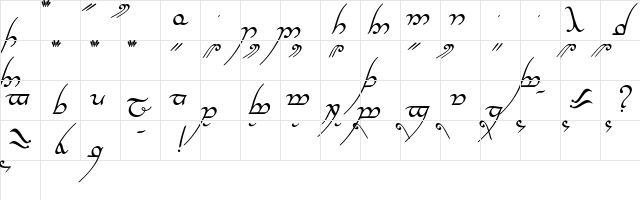
Tengwar Annatar Alt Italic Free Font
Tengwar Annatar Alt Italic
Designer: Johan Winge
Design Context for Tengwar Annatar Alt
Tengwar Annatar Alt is a composed and adaptable typeface that performs quietly and consistently across a wide range of design contexts. The slanted form adds forward momentum and visual energy.